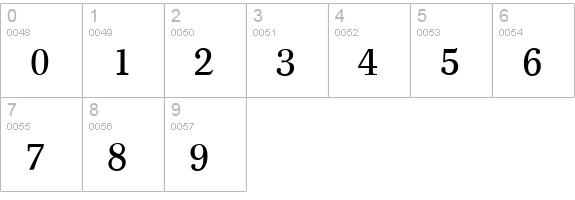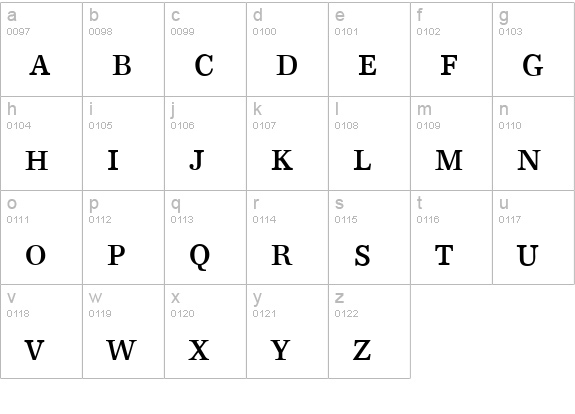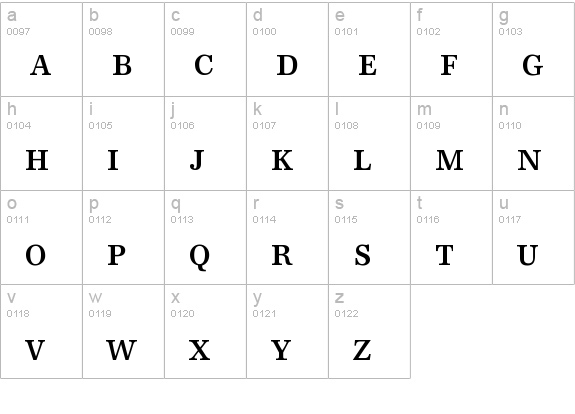
F820-Roman-Smc-Regular is the standard, neutral variant in the F820 typeface family \xE2\x80\x94 well suited to general body text, paragraphs, and standard typographic work.
F820-Roman-Smc-Regular is a classic and elegant font that exudes sophistication and style. With its timeless design and clean lines, this versatile typeface is perfect for a wide range of design projects, from invitations to logos to branding materials. The sleek and professional look of F820-Roman-Smc-Regular makes it a popular choice among designers and creatives looking to add a touch of class to their work. The best part? F820-Roman-Smc-Regular is completely free to download at FontsMarket.com. This means that you can access this high-quality font without having to spend a dime, making it a valuable asset for any designer on a budget. Whether you're working on a personal project or a client commission, F820-Roman-Smc-Regular is sure to elevate your designs and make a lasting impression. Don't miss out on the opportunity to enhance your creative projects with the timeless beauty of F820-Roman-Smc-Regular. Download this stunning font for free today and take your design work to the next level!